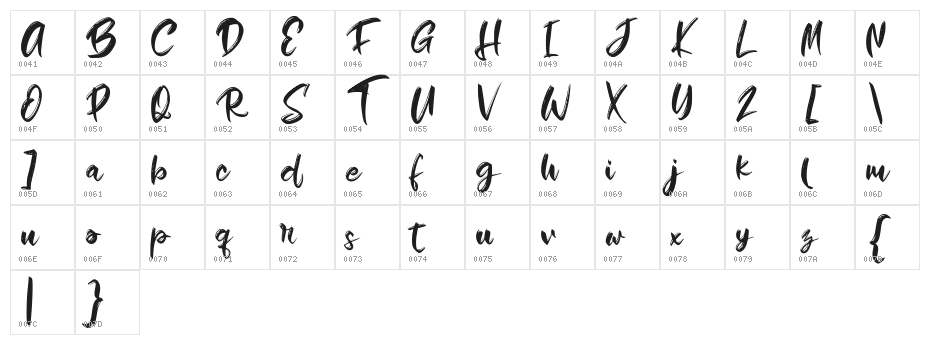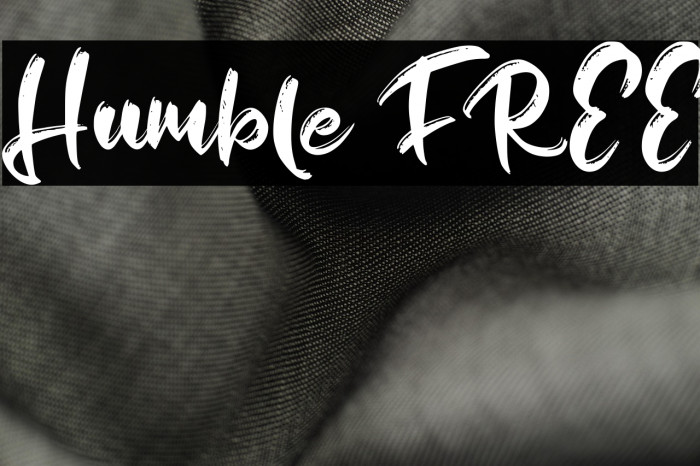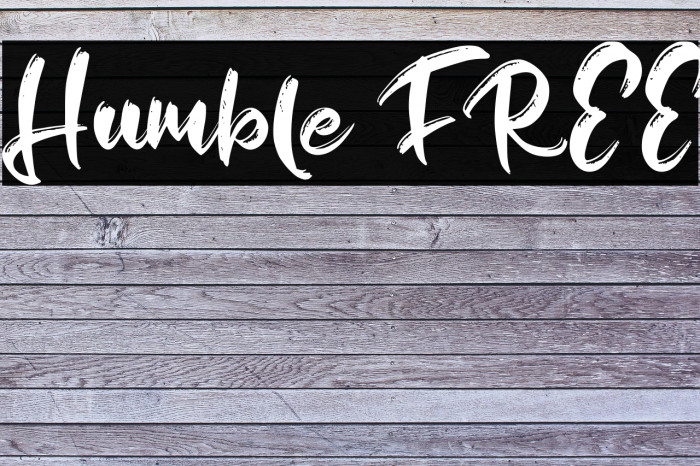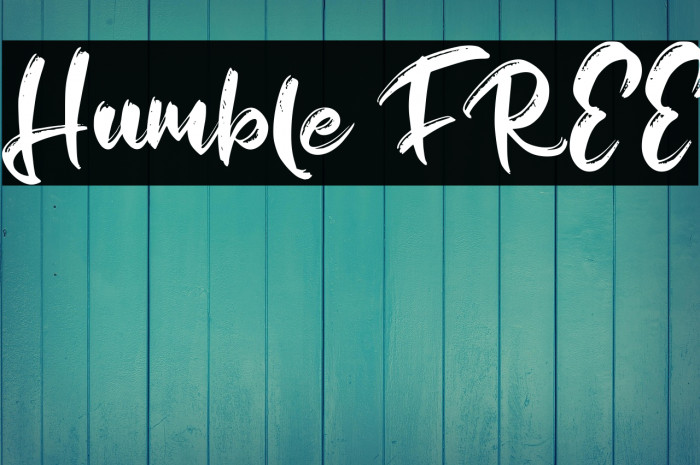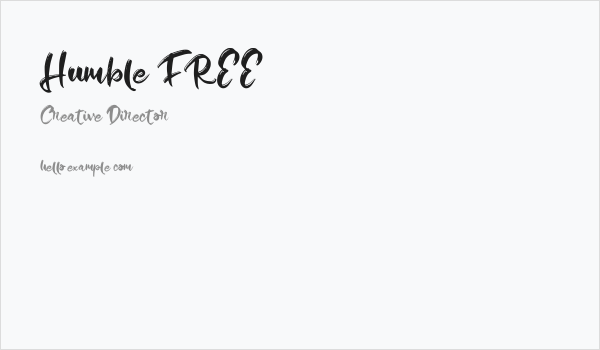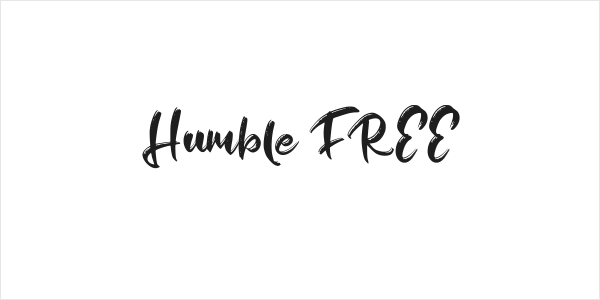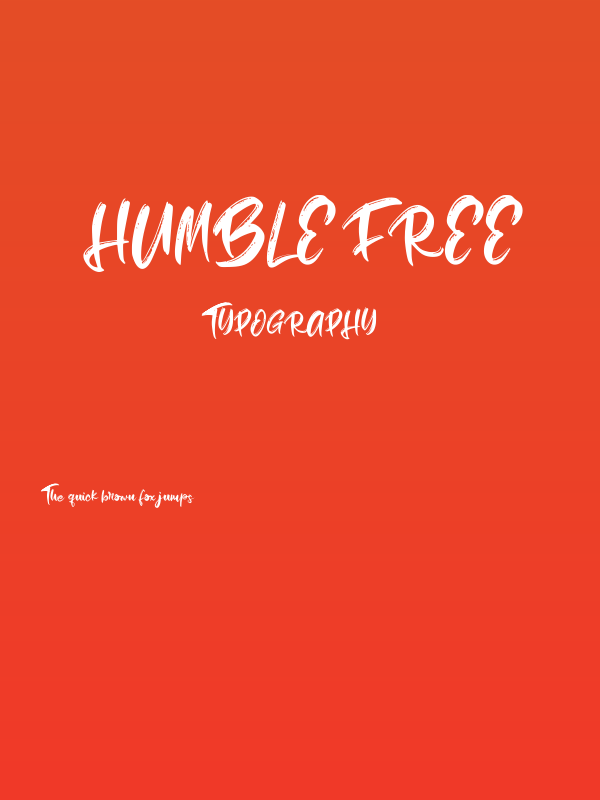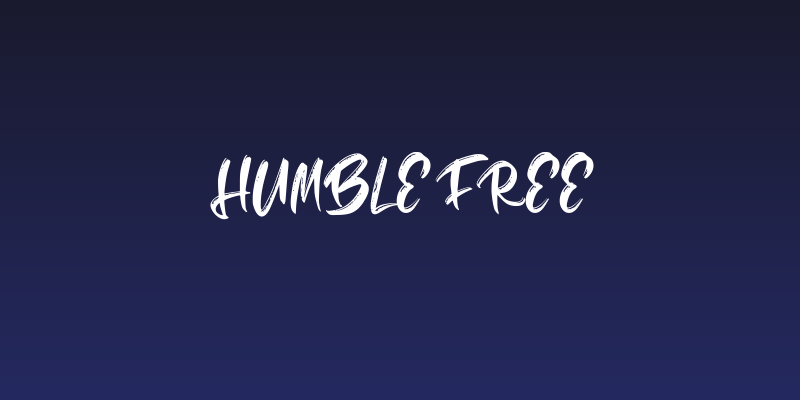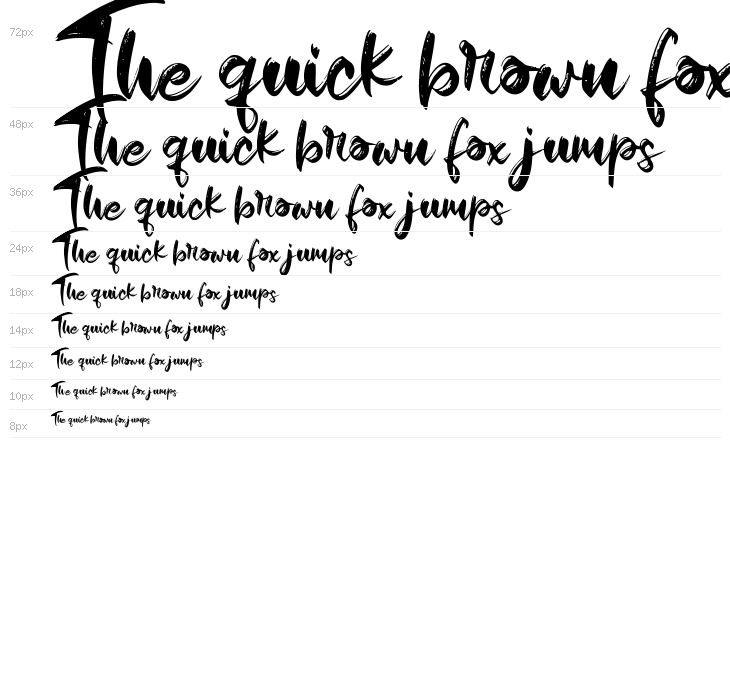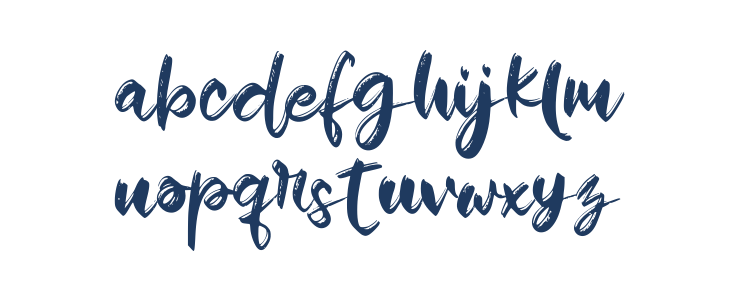
Humble FREE Font
Humble FREE Description
This font features a bold and expressive handwritten style with a brush-like texture. The strokes are dynamic and energetic, giving a sense of movement and fluidity. Each letter is unique, with varying thickness and a slightly rough edge, adding to its artistic and informal appeal. The uppercase and lowercase letters maintain a consistent style, while the numbers and special characters complement the overall design. This font is perfect for projects that require a personal touch or a creative flair.